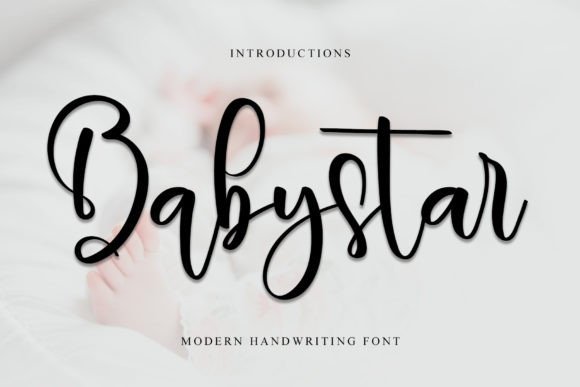
Discover the Joy of Babystar Font
Have you ever been working on a design project and suddenly, a spark of creativity hits you? You feel inspired to create something truly special, something that radiates happiness and warmth. For designers, those moments are what make all the hard work worth it. And that’s exactly what Babystar Font is designed to do – add a touch of joy to every creation.
Babystar Font is a stylish and modern handwritten font that’s perfect for a wide range of applications, from greeting cards to headlines, branding, and packaging. Its playful and approachable nature makes it an ideal choice for designers looking to add a personal touch to their work.
With the Babystar Font, you can elevate your designs and make them stand out in a crowded market. Its versatility and charm make it a valuable addition to any designer’s toolkit, ensuring that your creations are always infused with a sense of happiness and warmth.
Babystar Font Key Features
- Unique Characteristics: Hand-drawn design with a modern, playful feel; includes a wide range of ligatures and swashes for creative typography
- Font Style: Script, Display
Babystar Font Review
I recently had the chance to work with the Babystar Font, and I must say it’s a mixed bag. Here’s what I thought:
- Unique and playful feel: Babystar Font has a distinct personality that’s perfect for projects that need a touch of whimsy.
- High-quality glyphs: The font’s glyphs are well-designed and well-executed, making it a pleasure to work with.
- Good legibility: Even at smaller font sizes, Babystar Font remains easy to read, which is a must for any font.
- Limited language support: Babystar Font seems to be primarily designed for English, and support for other languages is limited or non-existent.
- No bold or italic variations: While the font has a clear and readable feel, it lacks the flexibility to create emphasis through bold or italic text.
- May not be suitable for professional use: Babystar Font’s playful feel may not be suitable for all types of projects, particularly those that require a more serious or professional tone.
Overall, I think Babystar Font is a great choice for personal projects or creative endeavors where a playful feel is desired. However, it may not be the best fit for more formal or professional projects.
Tips for Getting the Most Out of Babystar Font
Use Babystar Font for playful and creative designs, such as invitations, social media graphics, and children’s products.
Pair Babystar Font with bold and bright colors to create eye-catching designs.
Experiment with different font sizes and styles to add depth and interest to your designs.
Babystar Font is commonly used for:
Children’s products and packaging
Social media graphics and advertisements
Invitations and party decorations